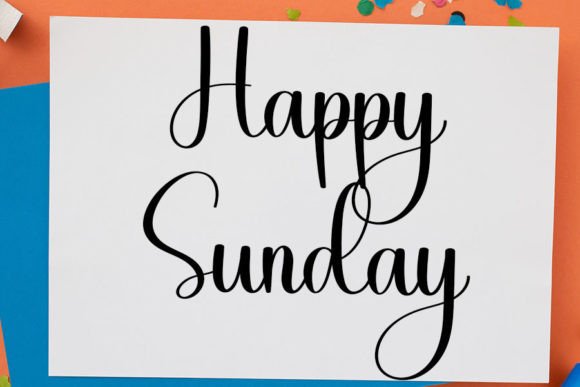
Introducing Chatting Font: The Perfect Handwritten Font for Your Next Project
Are you looking for a font that can add a personal touch to your designs? Look no further than Chatting Font, a simple and neat handwritten font that is perfect for a wide range of applications. In this article, we’ll take a closer look at Chatting Font and explore its features, benefits, and uses.
What is Chatting Font?
Chatting Font is a beautiful, handwritten font that is designed to add a natural feel to your designs. It’s a versatile font that can be used for a variety of projects, from greeting cards to headlines, and is perfect for anyone looking for a font that is both elegant and approachable.
One of the standout features of Chatting Font is its simplicity. The font has a clean and neat design that is easy to read and understand, making it perfect for use in a wide range of applications. Whether you’re designing a brochure, a website, or a social media post, Chatting Font is a great choice.
Features of Chatting Font
So, what makes Chatting Font so special? Here are just a few of its key features:
- Handwritten design: Chatting Font has a beautiful, handwritten design that adds a personal touch to your designs.
- Simple and neat: The font has a clean and simple design that is easy to read and understand.
- Versatile: Chatting Font can be used for a wide range of applications, from greeting cards to headlines.
- Elegant and approachable: The font has an elegant and approachable feel that makes it perfect for use in a variety of designs.
Benefits of Using Chatting Font
So, why should you choose Chatting Font for your next project? Here are just a few of the benefits of using this amazing font:
- Adds a personal touch: Chatting Font adds a personal touch to your designs, making them more relatable and engaging.
- Improves readability: The font’s clean and simple design makes it easy to read and understand, even at small sizes.
- Increases versatility: Chatting Font can be used for a wide range of applications, making it a great addition to your font library.
- Enhances creativity: The font’s elegant and approachable feel makes it perfect for use in creative projects, such as greeting cards and invitations.
Uses of Chatting Font
So, what can you use Chatting Font for? The possibilities are endless! Here are just a few ideas to get you started:
- Greeting cards: Chatting Font is perfect for use in greeting cards, adding a personal touch to your messages.
- Headlines: The font’s elegant and approachable feel makes it perfect for use in headlines, adding a touch of sophistication to your designs.
- Brochures: Chatting Font can be used to add a personal touch to your brochures, making them more engaging and effective.
- Websites: The font’s clean and simple design makes it perfect for use on websites, improving readability and user experience.
- Social media posts: Chatting Font can be used to add a personal touch to your social media posts, making them more relatable and engaging.
Tips for Using Chatting Font
Here are a few tips for getting the most out of Chatting Font:
- Use it sparingly: Chatting Font is a beautiful font, but it can be overwhelming if used too much. Use it sparingly to add a touch of elegance to your designs.
- Pair it with other fonts: Chatting Font can be paired with other fonts to create a unique and interesting design.
- Experiment with sizes: The font’s clean and simple design makes it perfect for use at a variety of sizes, from small to large.
- Use it in creative projects: Chatting Font is perfect for use in creative projects, such as greeting cards and invitations.
In conclusion, Chatting Font is a beautiful and versatile handwritten font that is perfect for a wide range of applications. Its simple and neat design makes it easy to read and understand, while its elegant and approachable feel adds a personal touch to your designs.
Whether you’re designing a greeting card, a brochure, or a website, Chatting Font is a great choice. So why not give it a try and see the difference it can make in your designs?
- What is Chatting Font? Chatting Font is a simple and neat handwritten font that is perfect for a wide range of applications.
- What are the benefits of using Chatting Font? The benefits of using Chatting Font include adding a personal touch to your designs, improving readability, increasing versatility, and enhancing creativity.
- What can I use Chatting Font for? Chatting Font can be used for a wide range of applications, including greeting cards, headlines, brochures, websites, and social media posts.
- How do I get the most out of Chatting Font? To get the most out of Chatting Font, use it sparingly, pair it with other fonts, experiment with sizes, and use it in creative projects.